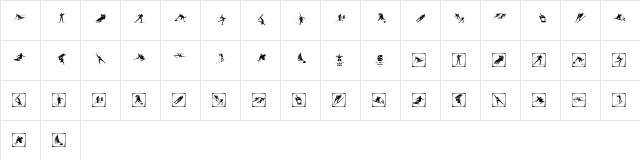
Vancouver2010 PictogramsBW Regular
Design Context for Vancouver2010 PictogramsBW Typeface
Vancouver2010 PictogramsBW is a composed and adaptable typeface that performs quietly and consistently across a wide range of design contexts.